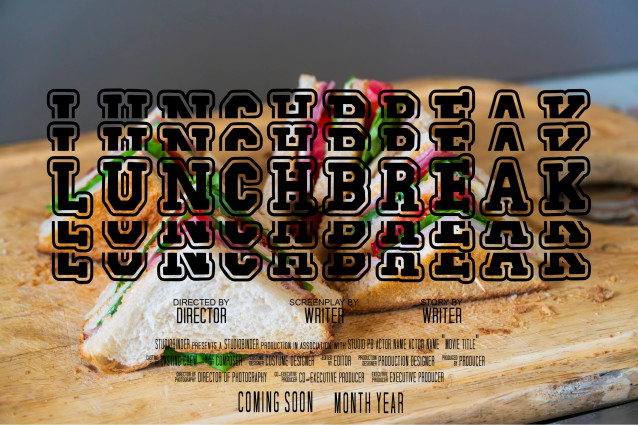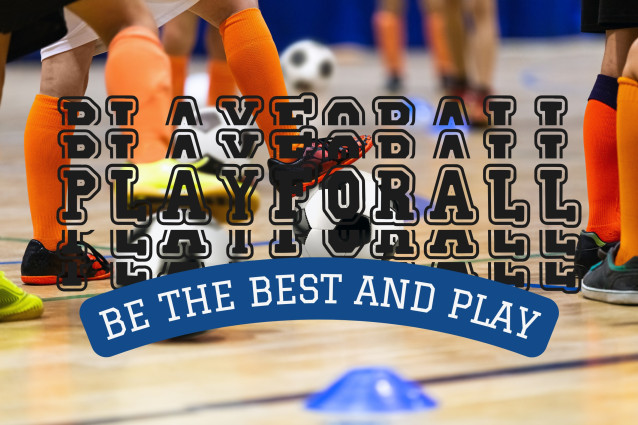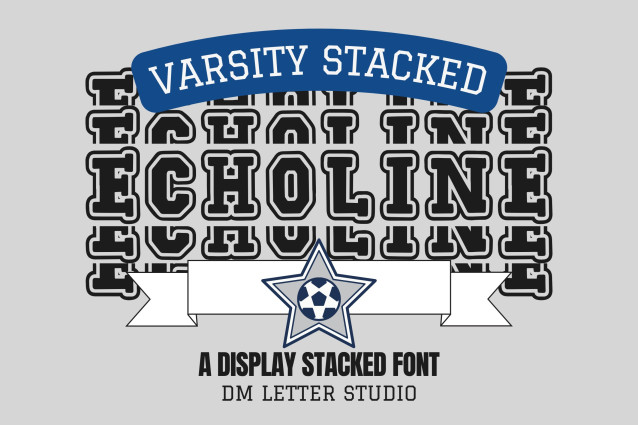
Echoline Varsity Stacked Font
Echoline Varsity Stacked is a bold and layered version of the original Echoline Varsity font, designed for maximum impact and readability. Featuring stacked lettering with a sporty edge, this font captures the essence of team pride, school spirit, and vintage athletic aesthetics — all in a modern layout ideal for standout headlines and apparel.